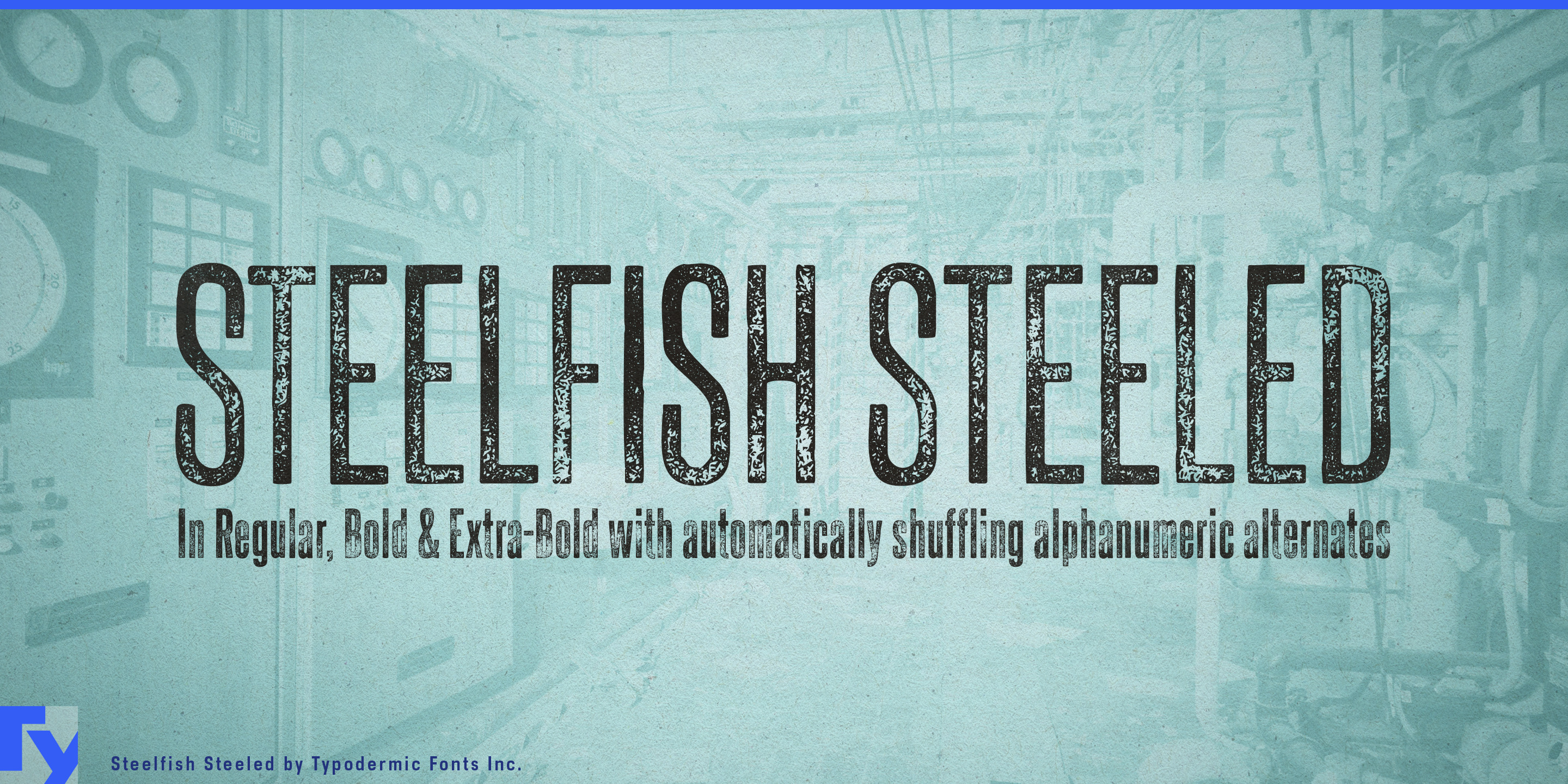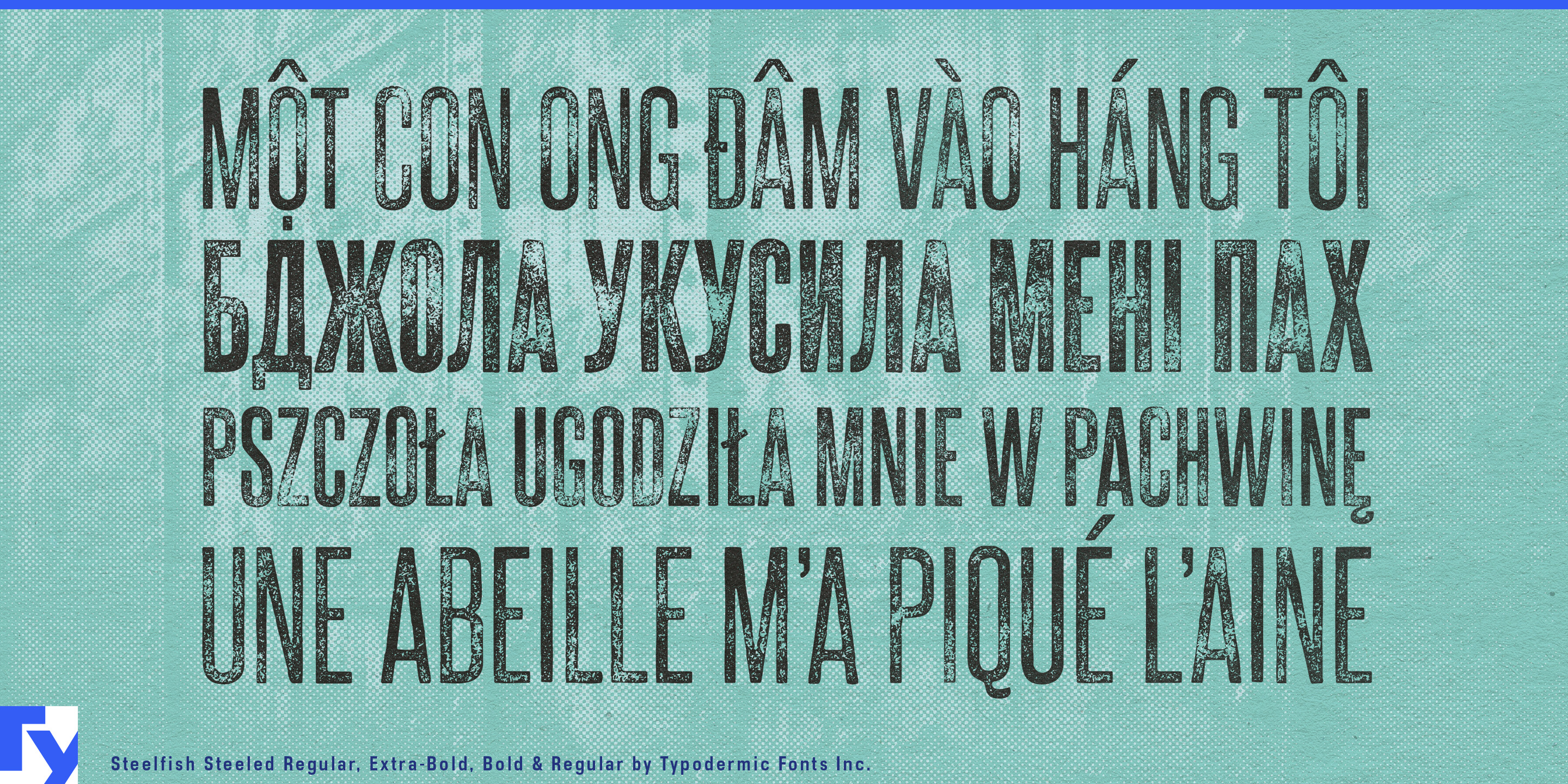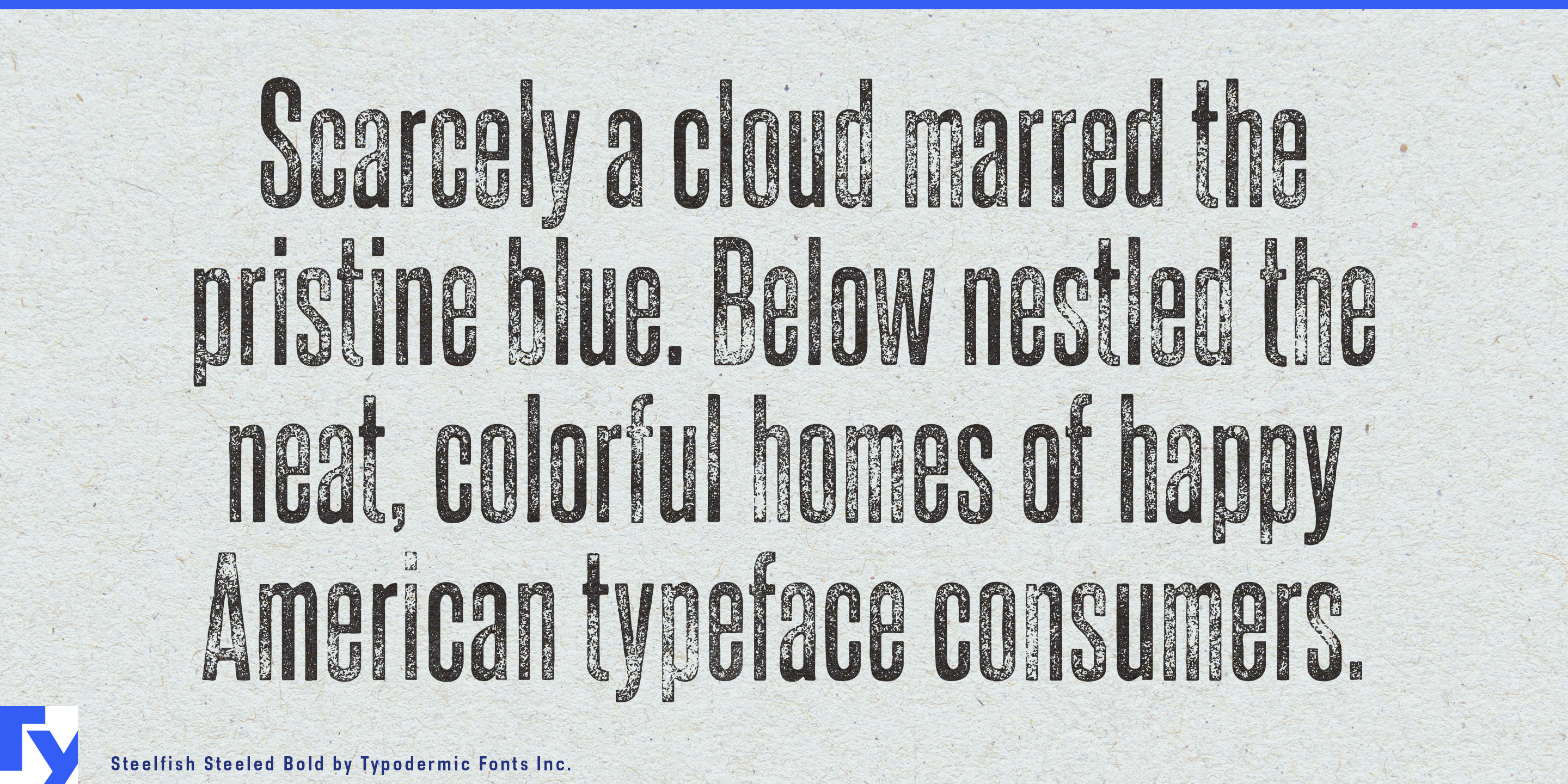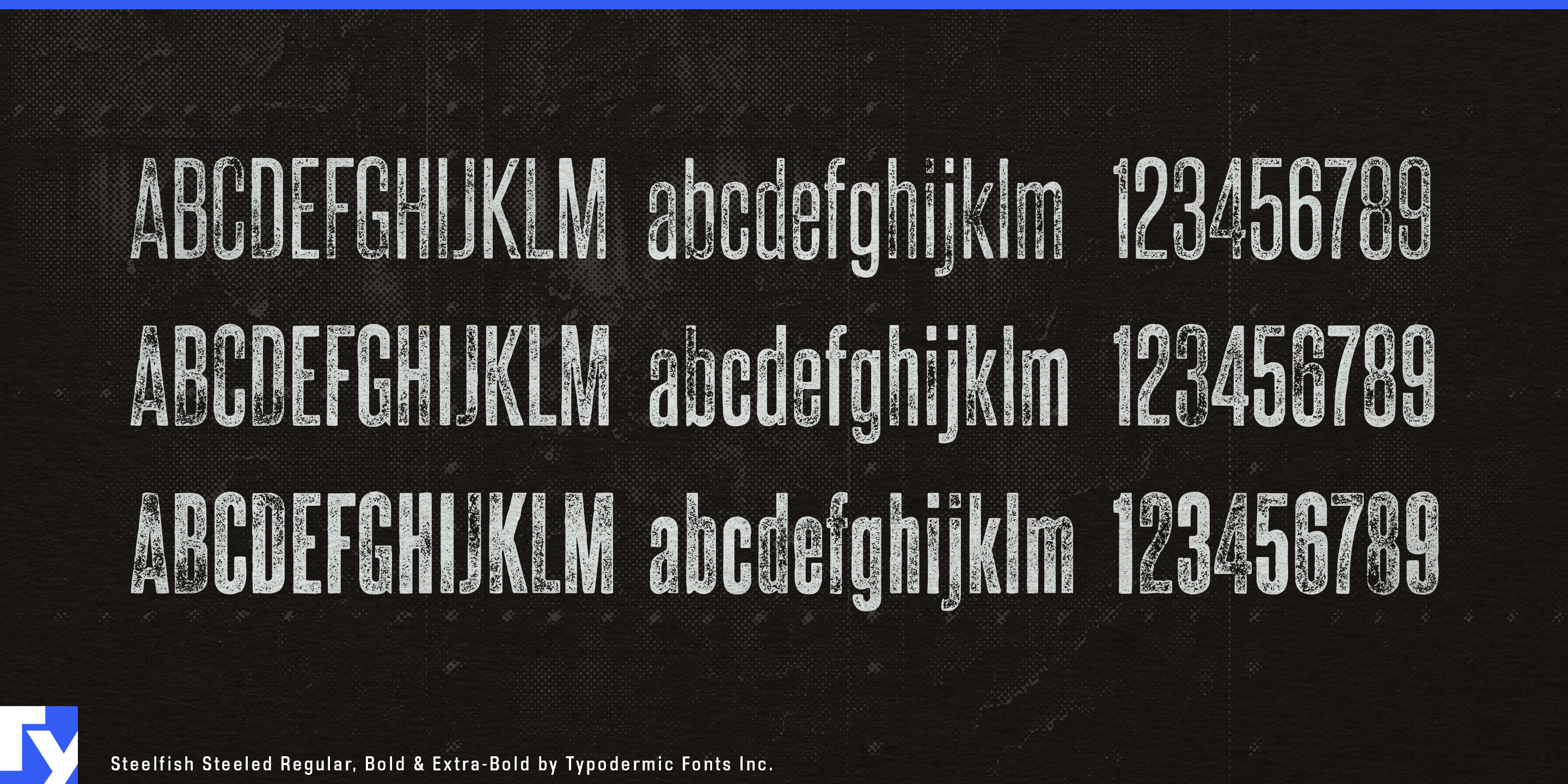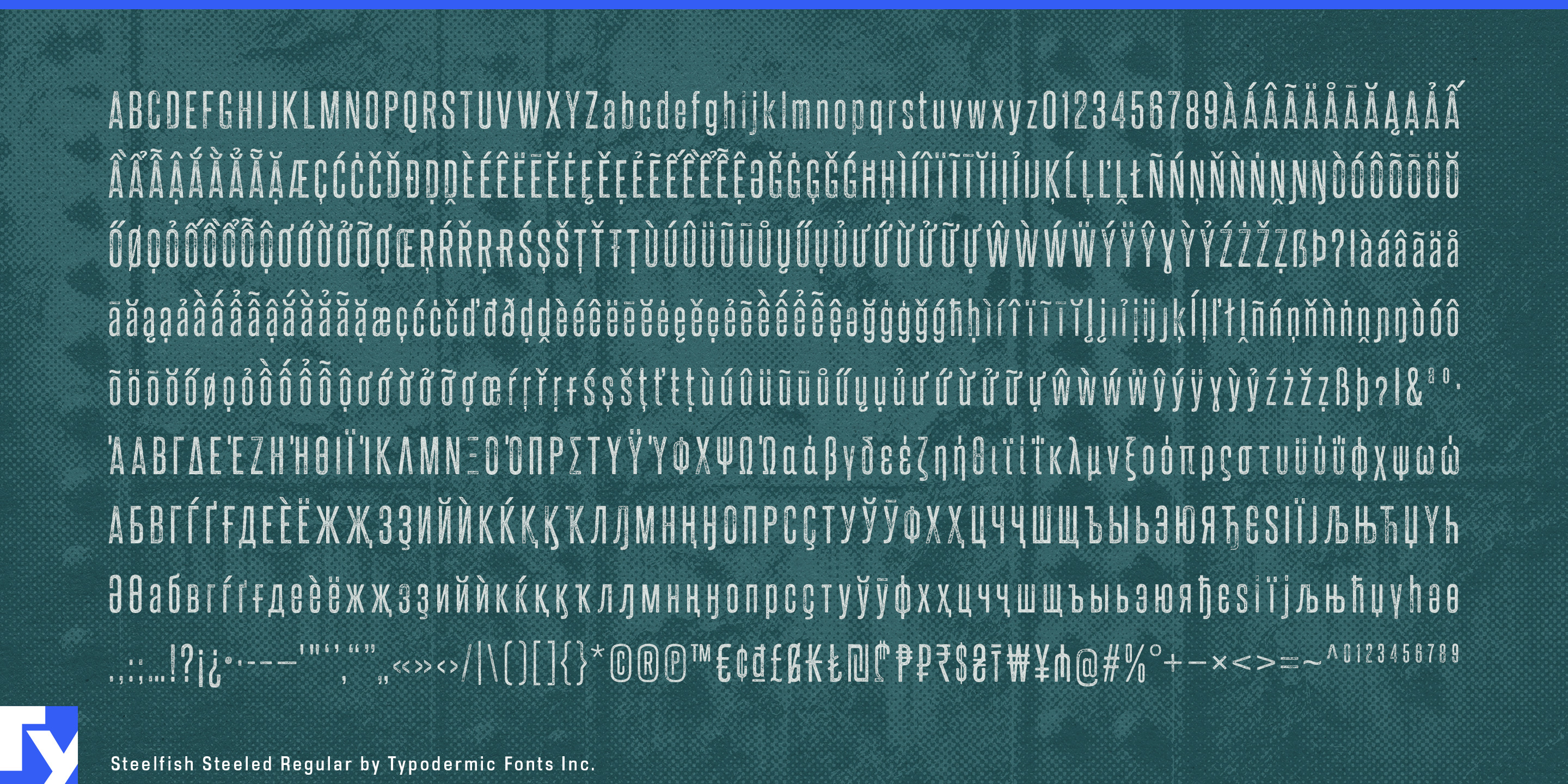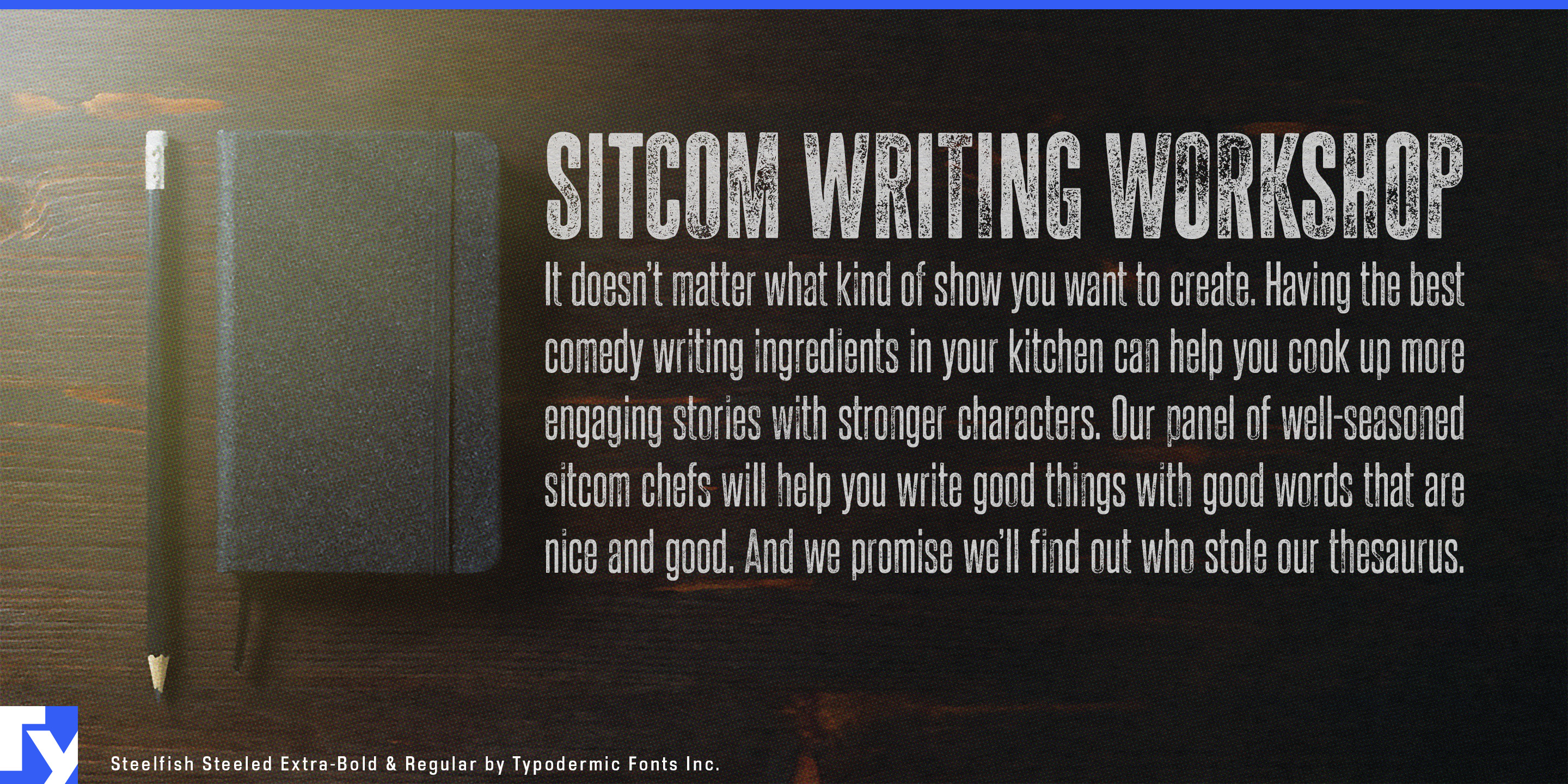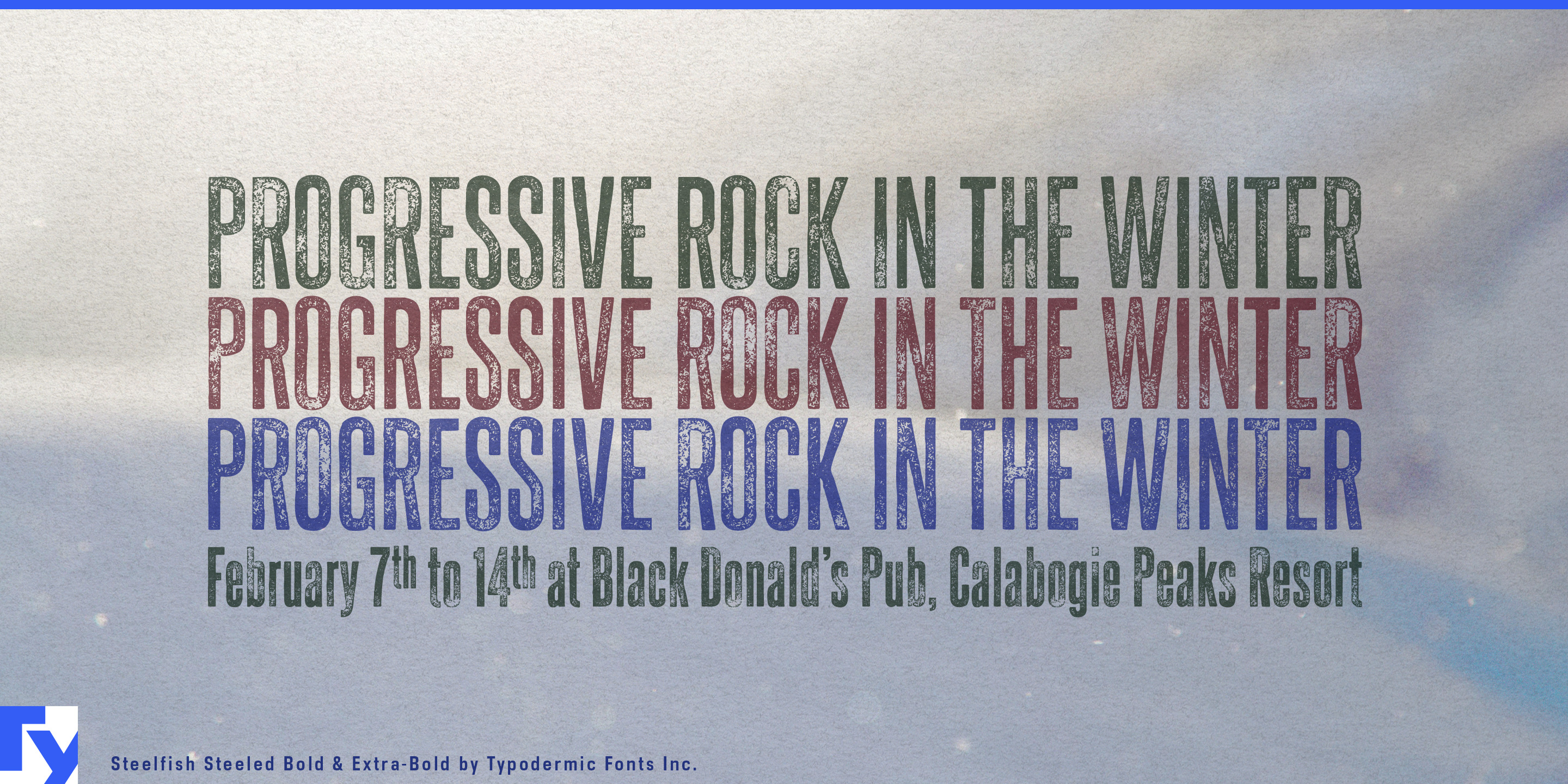
Steelfish Steeled
Some products need narrow typography because the names are long. Others need wear because pristine lettering would feel wrong. Steelfish Steeled handles both at once: the compressed proportions of Steelfish combined with a weathered printed surface built directly into the letters.
That makes it useful in systems where the copy keeps changing. Product names, part numbers, model codes, event titles and campaign lines can all be typeset without manually rebuilding distress for every new piece. Alternate textured forms help repeated characters avoid exposing identical digital patterns, preserving the irregularity when letters or numerals occur side by side.
Automotive and powersports branding is a natural fit. Performance exhausts, suspension systems, motorcycle components, off-road accessories, restoration parts and garage equipment often need long names squeezed onto cartons, decals, dealer graphics and trade-show panels. Steelfish Steeled keeps those names compact while adding the worn-shop character that a clean condensed sans would lack.
Professional tools and rugged equipment present the same problem. Welding gear, compressors, work lights, protective cases, tool storage and contractor equipment benefit from lettering that feels printed onto something physical rather than placed onto a pristine screen. The family can handle product lines, series numbers, specifications and packaging headers while keeping the texture rough but controlled.
Workwear extends that language into heavy denim, mechanic shirts, shop jackets, utility bags and protective apparel. Garment patches, hangtags, model markings and retail graphics gain an industrial tone without relying on stencil lettering or familiar heritage slabs. Strength and combat sports can use the same combination for athlete names, event titles, weight classes, gym equipment and training apparel.
Steelfish Steeled also suits machinery-driven game worlds: off-road racing, vehicle restoration, mech combat, survival settings and factory environments. Expansion names, vehicle classes, faction titles and achievement graphics can look handled and mechanical without collapsing into exaggerated post-apocalyptic damage.
The family consists of Regular, Bold and Extra-Bold. The original Steelfish keeps the ultra-condensed structure clean; Steelfish Rounded softens it; Steelfish Hammer pushes further into battered, aggressive texture; and Steelfish Unleaded uses a softer worn treatment. Steelfish Steeled occupies the middle ground where the lettering should feel printed, scuffed and industrial, while remaining controlled enough for product systems.
When clean typography looks too polished for the object it has to describe, Steelfish Steeled puts the wear into the type itself.